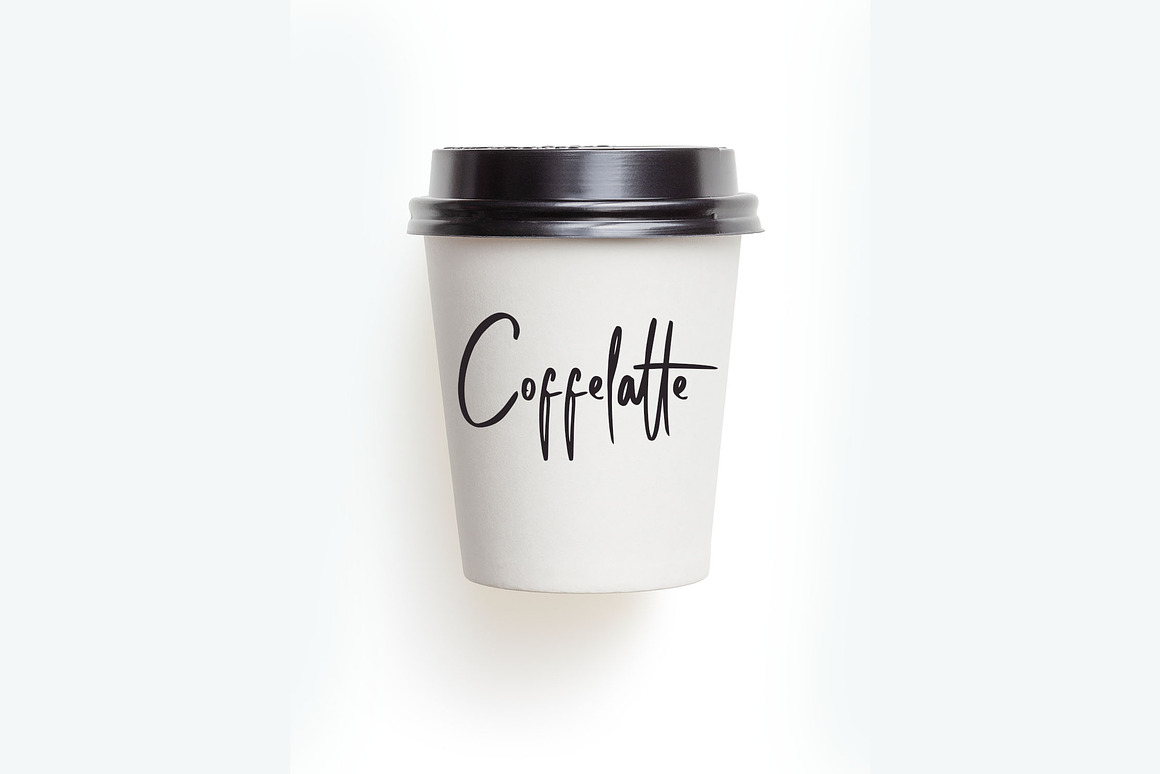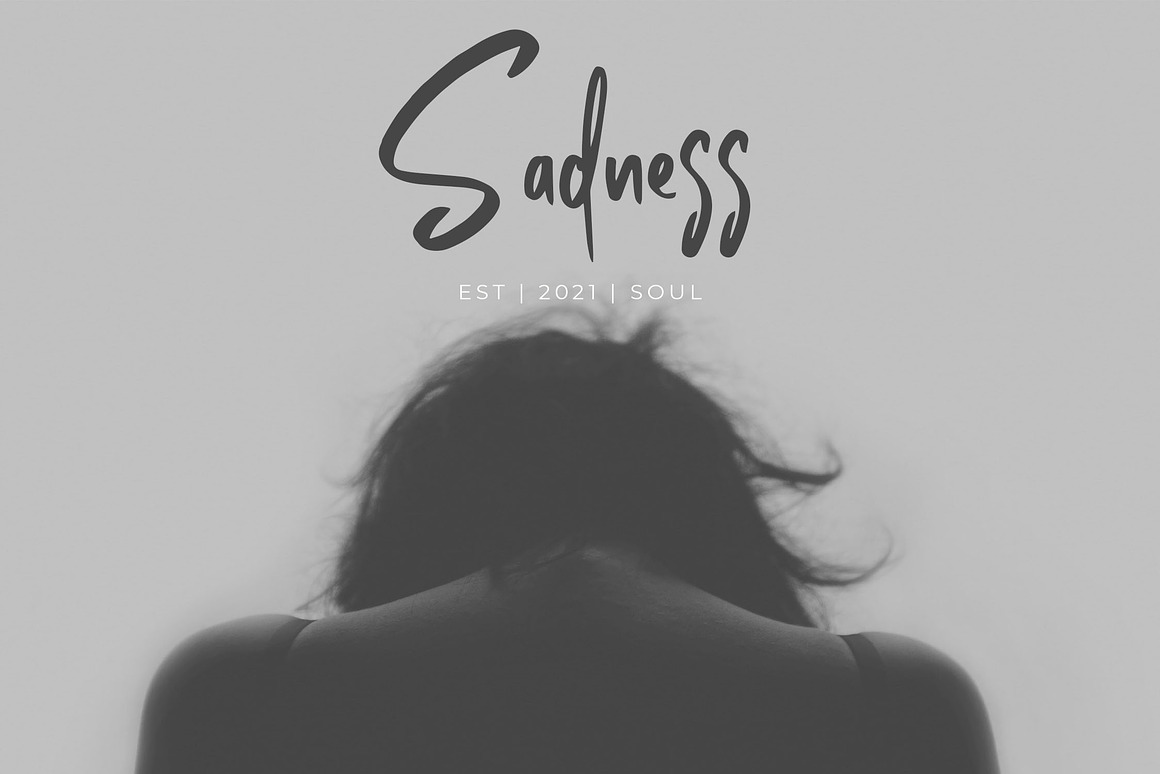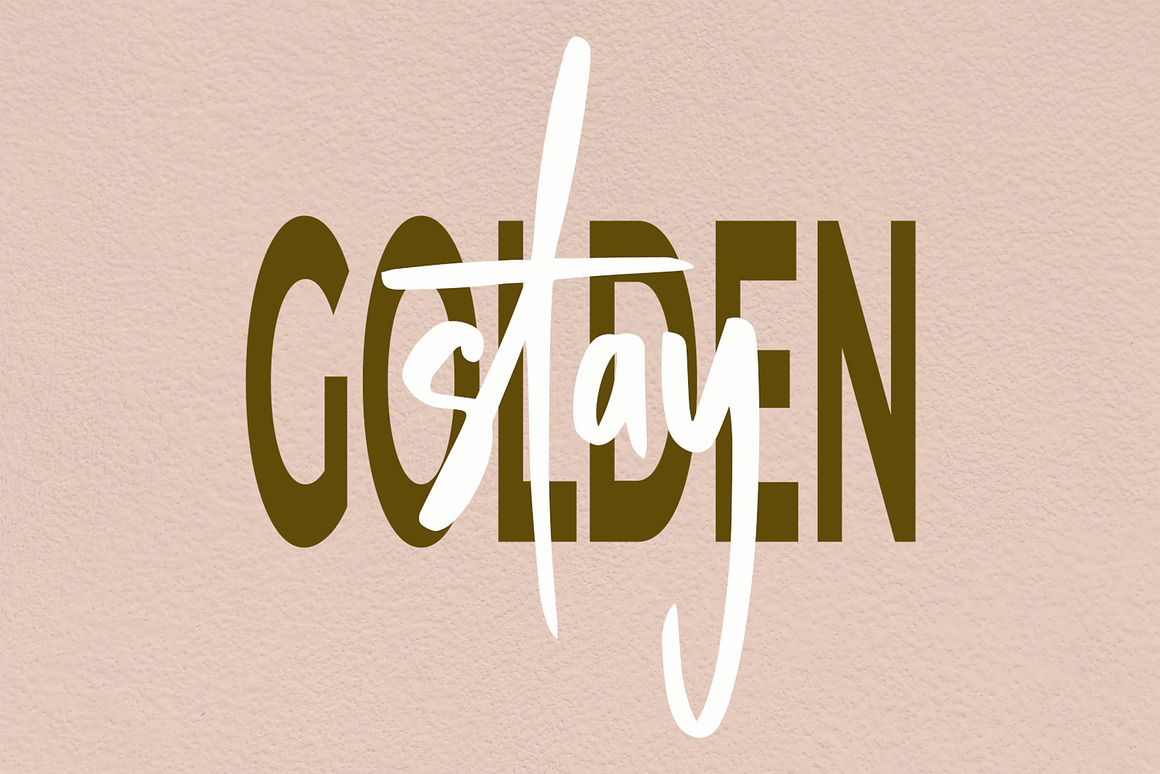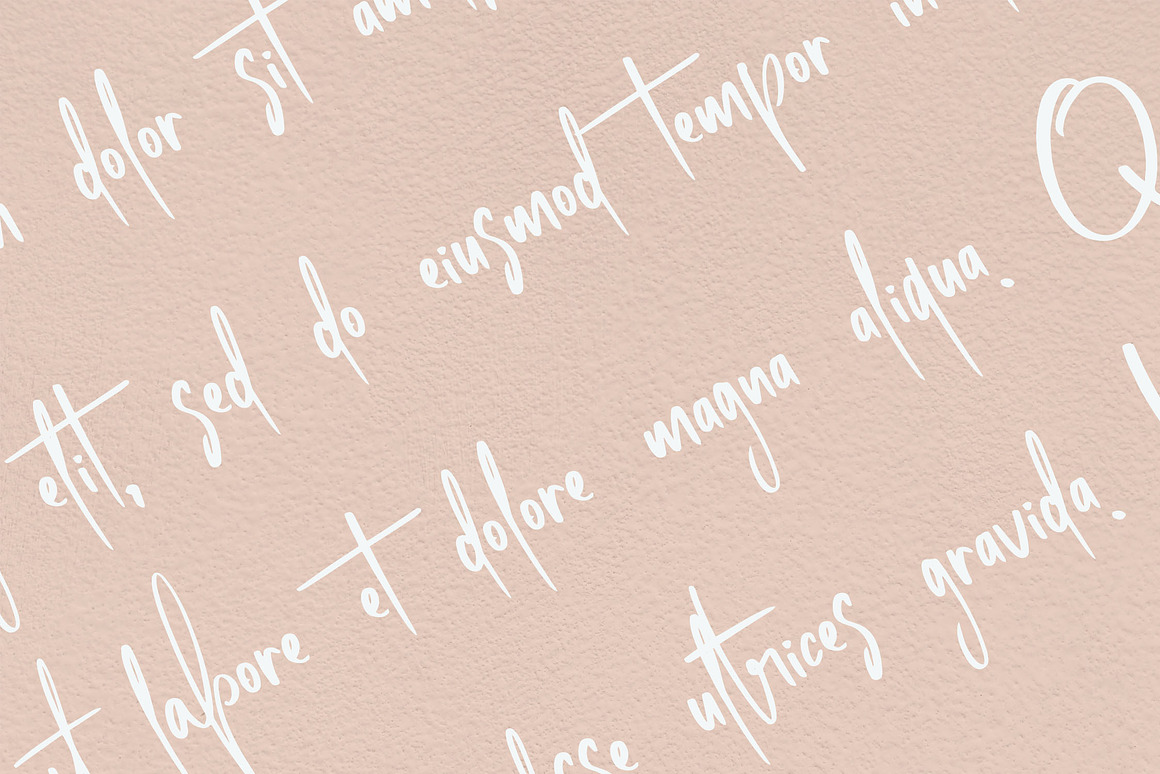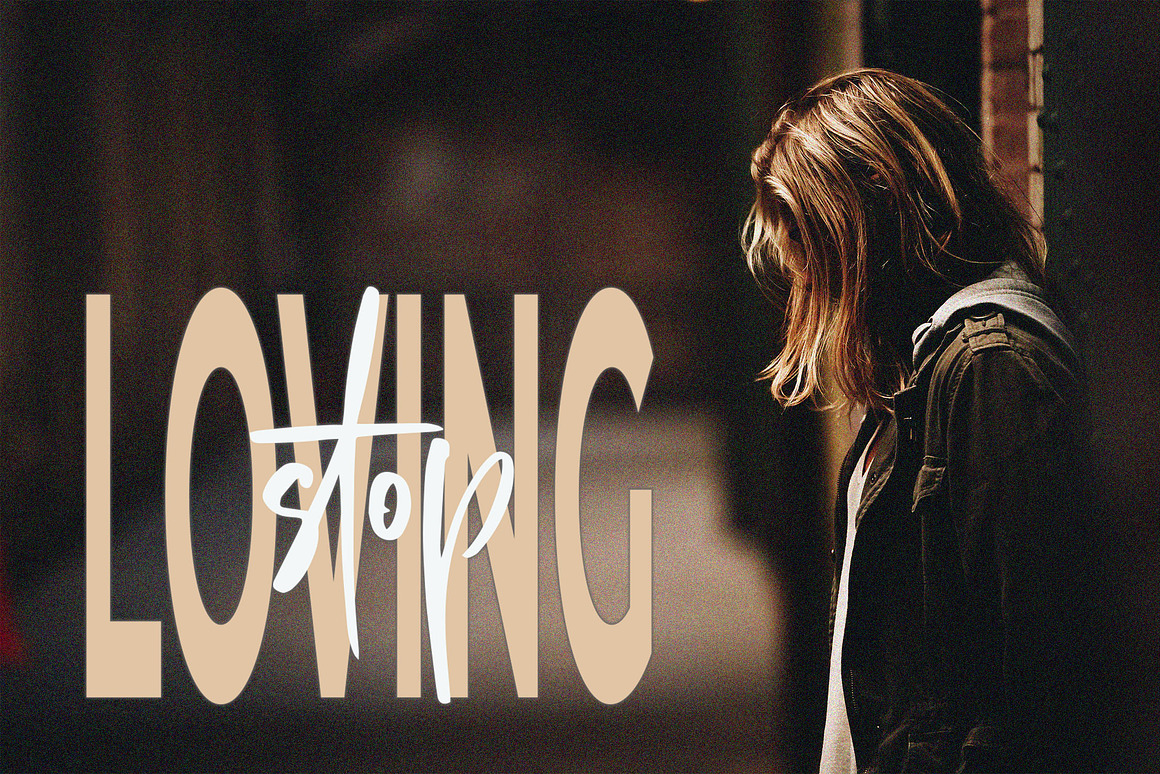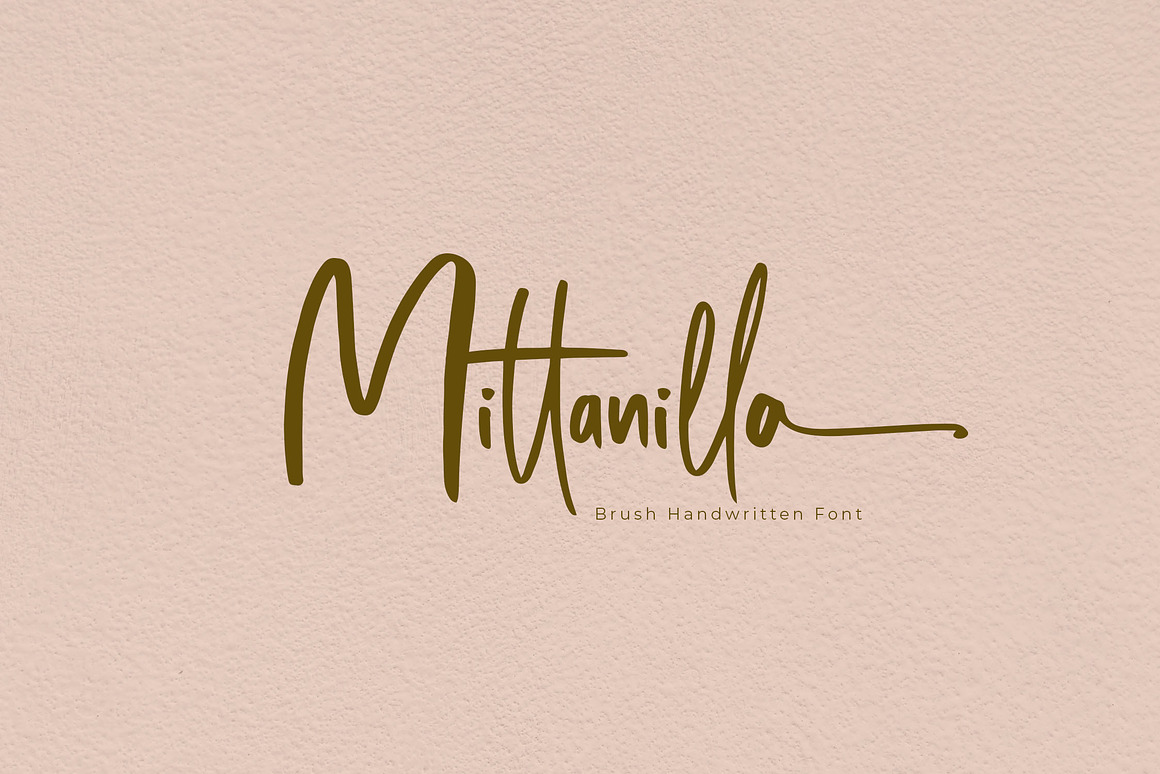
Mittanilla Handwriting Brush Font
Mittanilla - Elegant Handwriting Brush Font Introducing Mittanilla, a captivating handwriting font featuring a stunning brush style. Crafted with unique and intricate character shapes, this font adds a personal and artistic touch to your designs. Whether you're working on branding, invitations, or creative projects, Mittanilla enhances the visual appeal and brings your ideas to life. We sincerely appreciate your interest in downloading Mittanilla, and we are committed to providing regular updates to keep this font versatile and fresh for all your design needs.